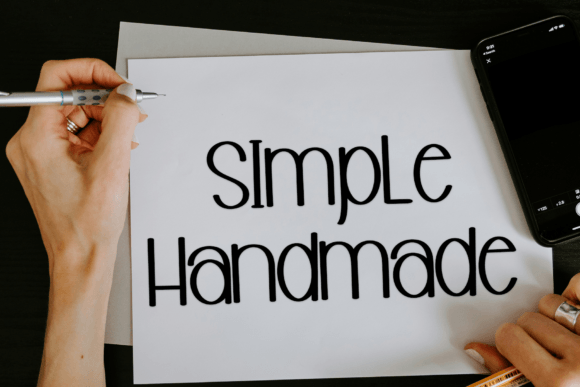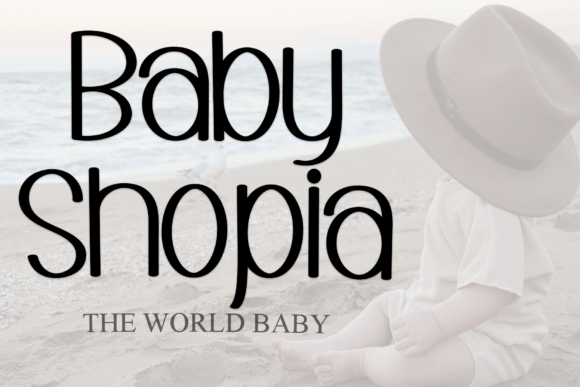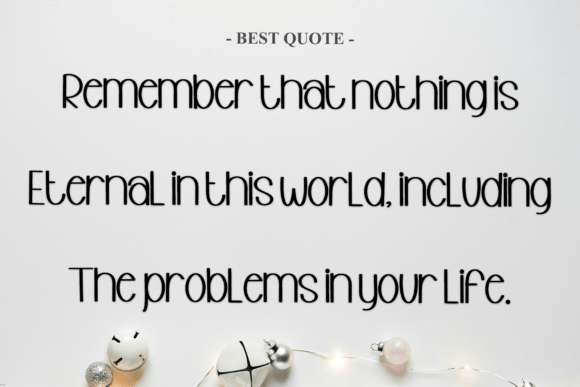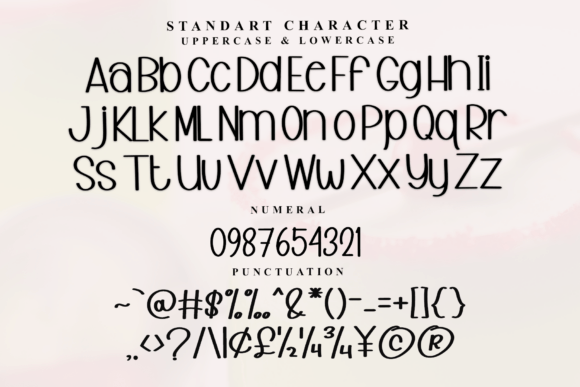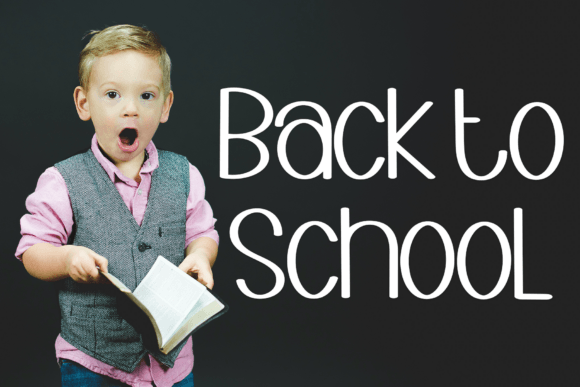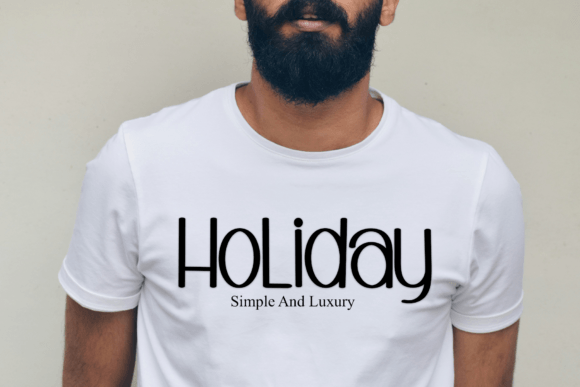
The Disney Country Font: A Friendly and Playful Choice for Your Designs
I’ll never forget the time I was working on a project for a children’s birthday party, and I just couldn’t find the right font to match the theme. The client wanted something fun, playful, and easy to read. I scoured the internet, tried out dozens of fonts, but nothing seemed quite right. That was until I stumbled upon the Disney Country font. It was like a breath of fresh air – simple, clean, and full of personality. In this article, I’ll share my love for this font, its features, and how to make the most of it in your designs.
An Honest Review of Disney Country Font
- ✨ Simple and clean sans serif typeface that’s easy on the eyes
- ✅ Friendly and playful look that’s perfect for fun and casual designs
- ✅ Modern feel that suits a variety of projects, from children’s materials to cheerful branding
- ✨ Easy to read, even at smaller font sizes
While the Disney Country font is amazing, it’s not perfect. Here are a few things to keep in mind:
- ⚠️ Limited stylistic alternates, which might not offer as much flexibility as some designers would like
- 🤔 Not ideal for formal or corporate designs, as it may come across as too playful
The Story Behind Disney Country Font
The Disney Country font was designed with the goal of creating a friendly and approachable typeface that’s perfect for fun and casual designs. The font’s simplicity and cleanliness make it easy to read, while its playful personality adds a touch of whimsy to any project. Whether you’re designing for children or creating cheerful branding, the Disney Country font is an excellent choice.
Q: What type of projects is the Disney Country font best suited for?
A: The Disney Country font is perfect for fun and casual designs, such as children’s materials, cheerful branding, and creative projects.
Q: Is the Disney Country font available in different languages?
A: The Disney Country font may not have extensive language support, but it’s a great choice for designs that require a simple and clean sans serif typeface.